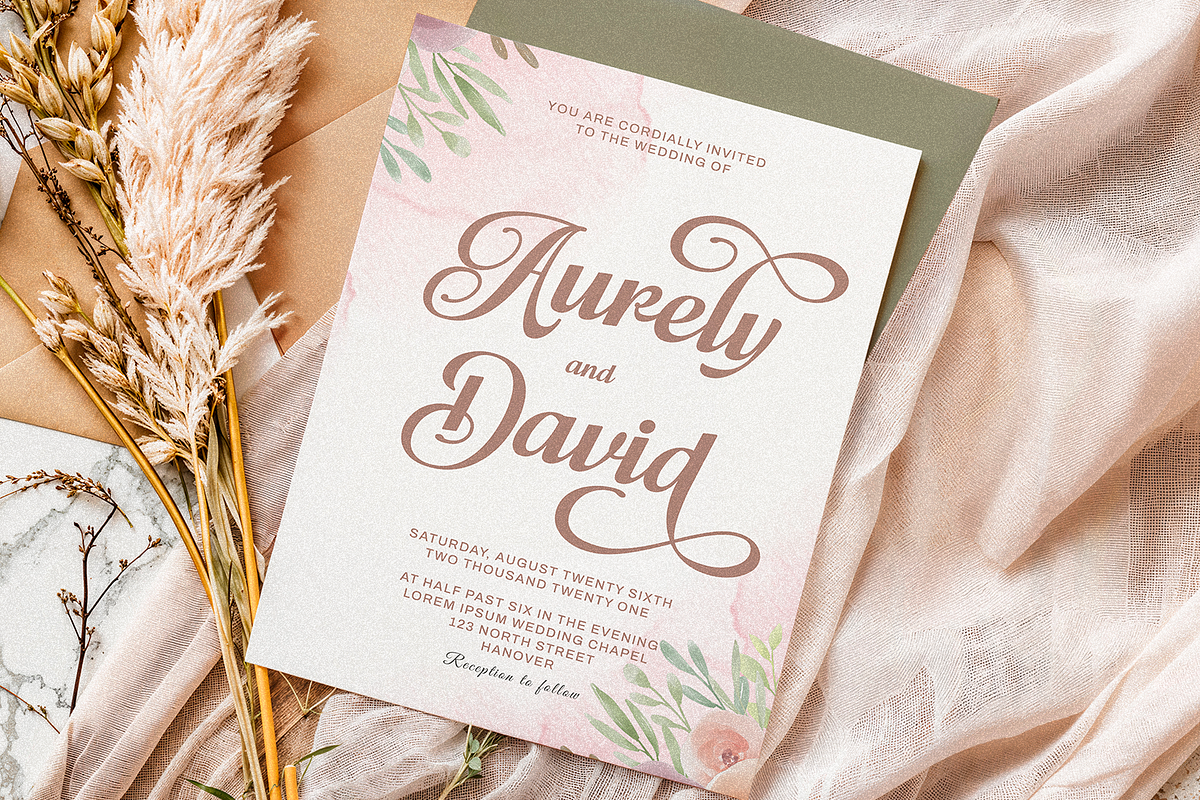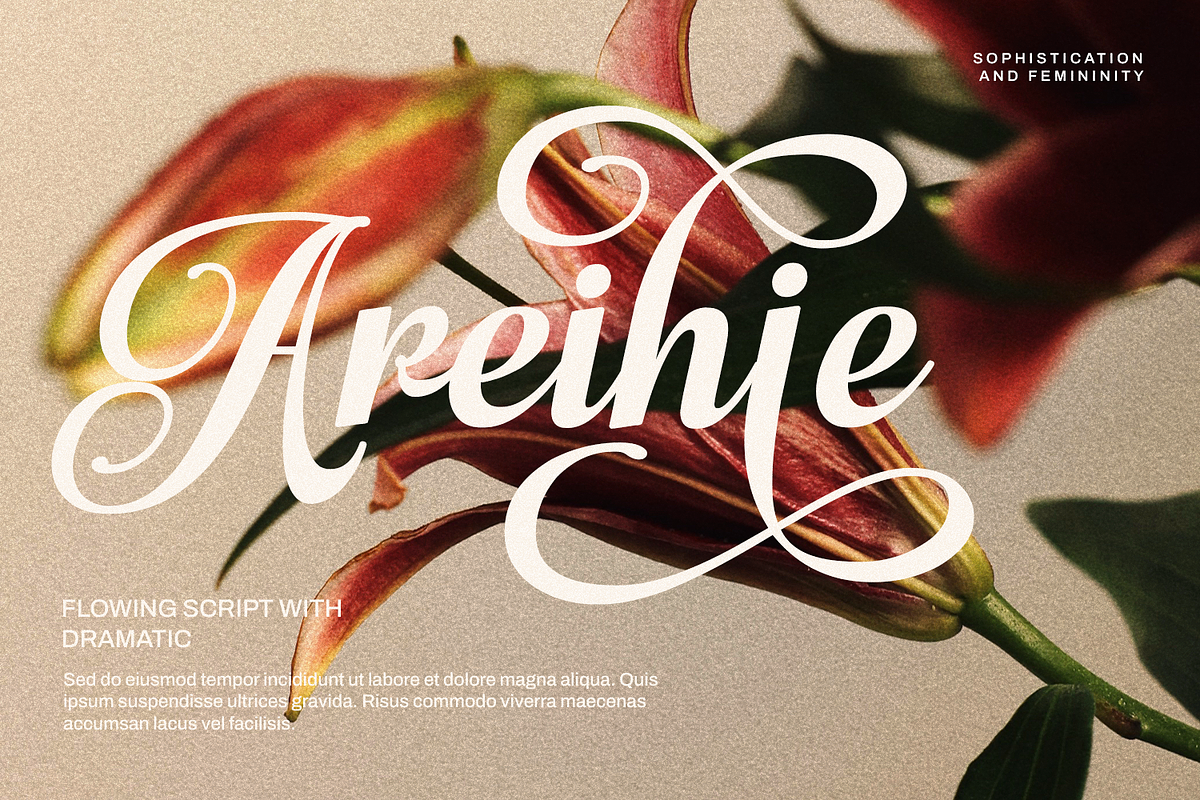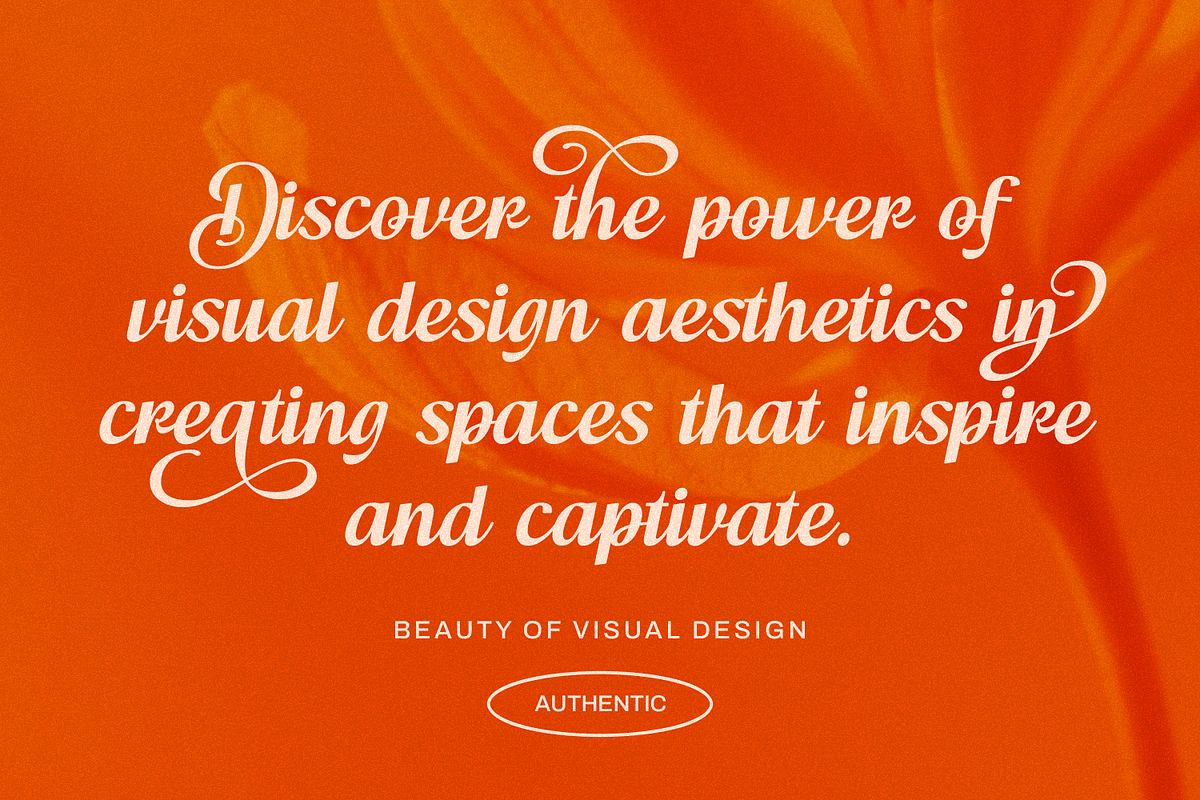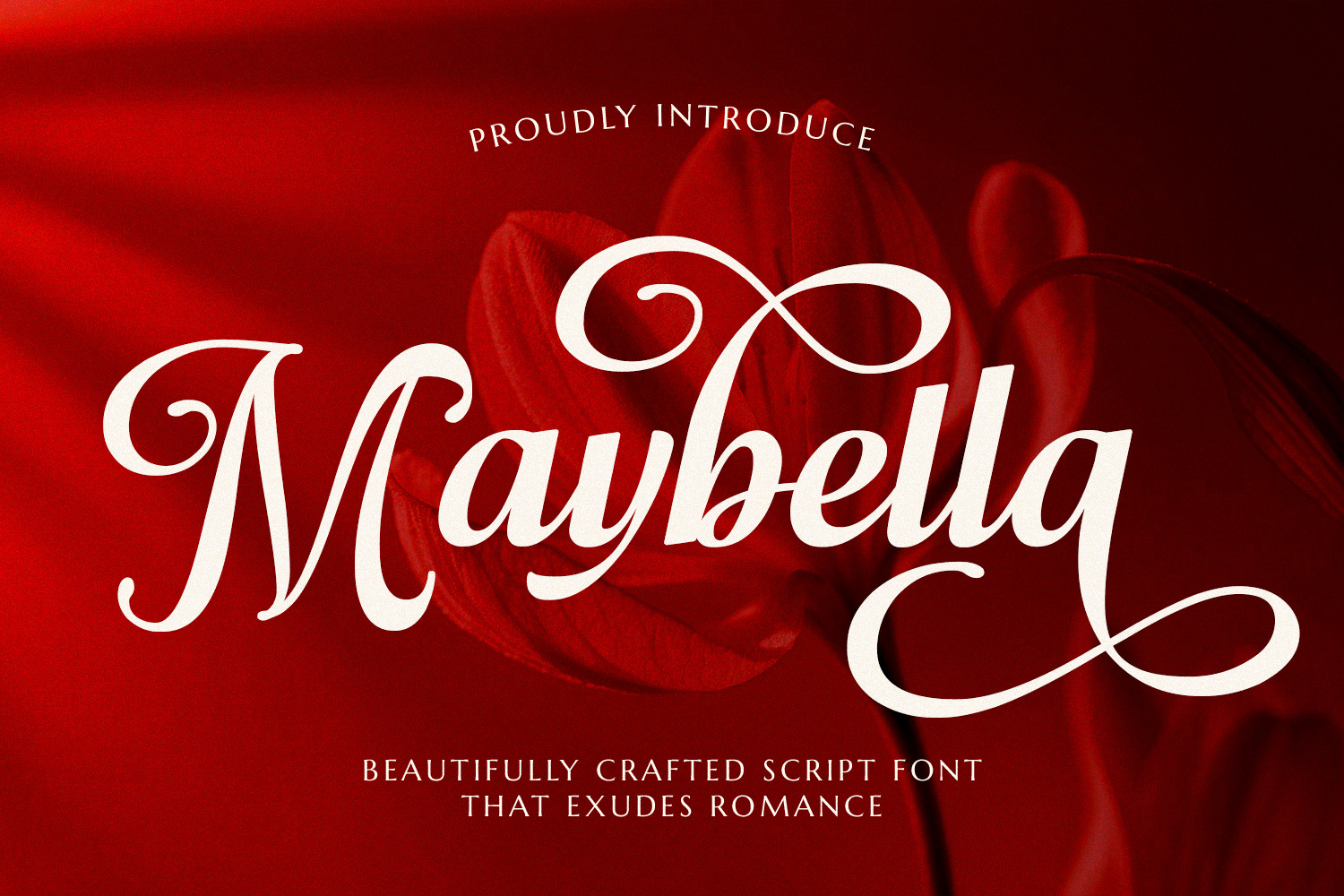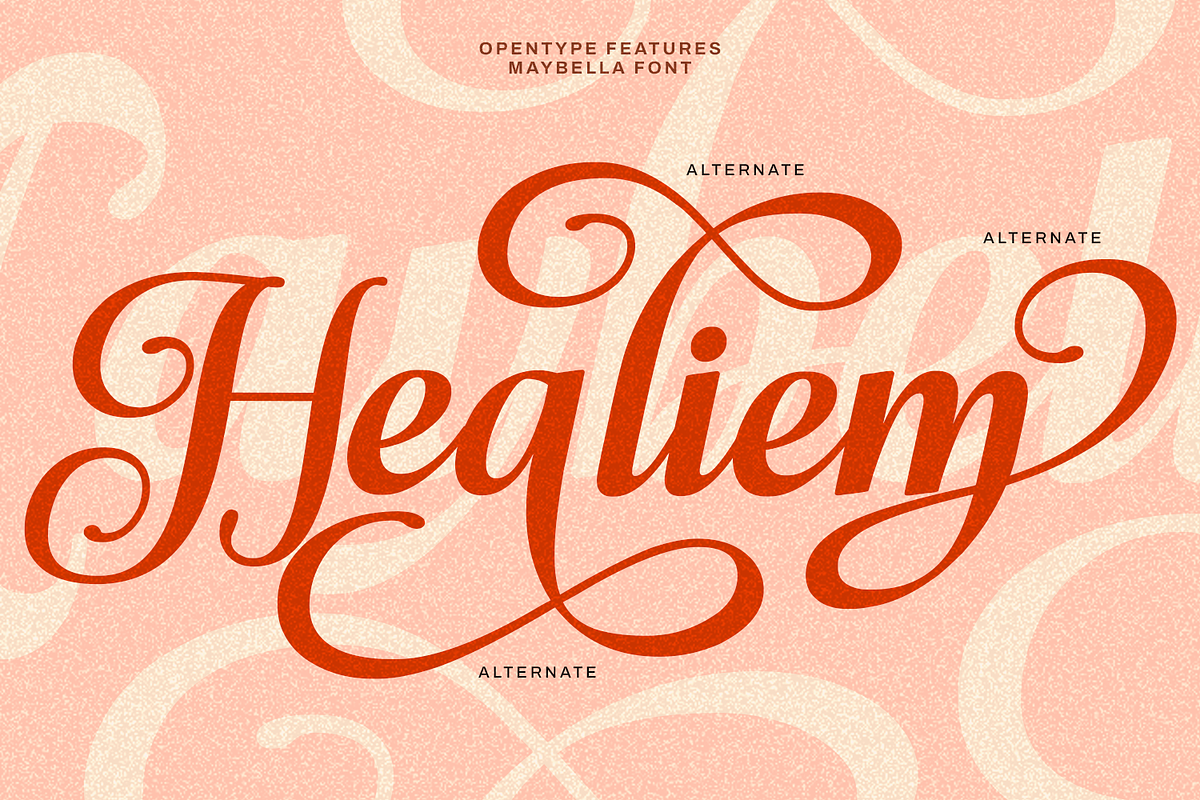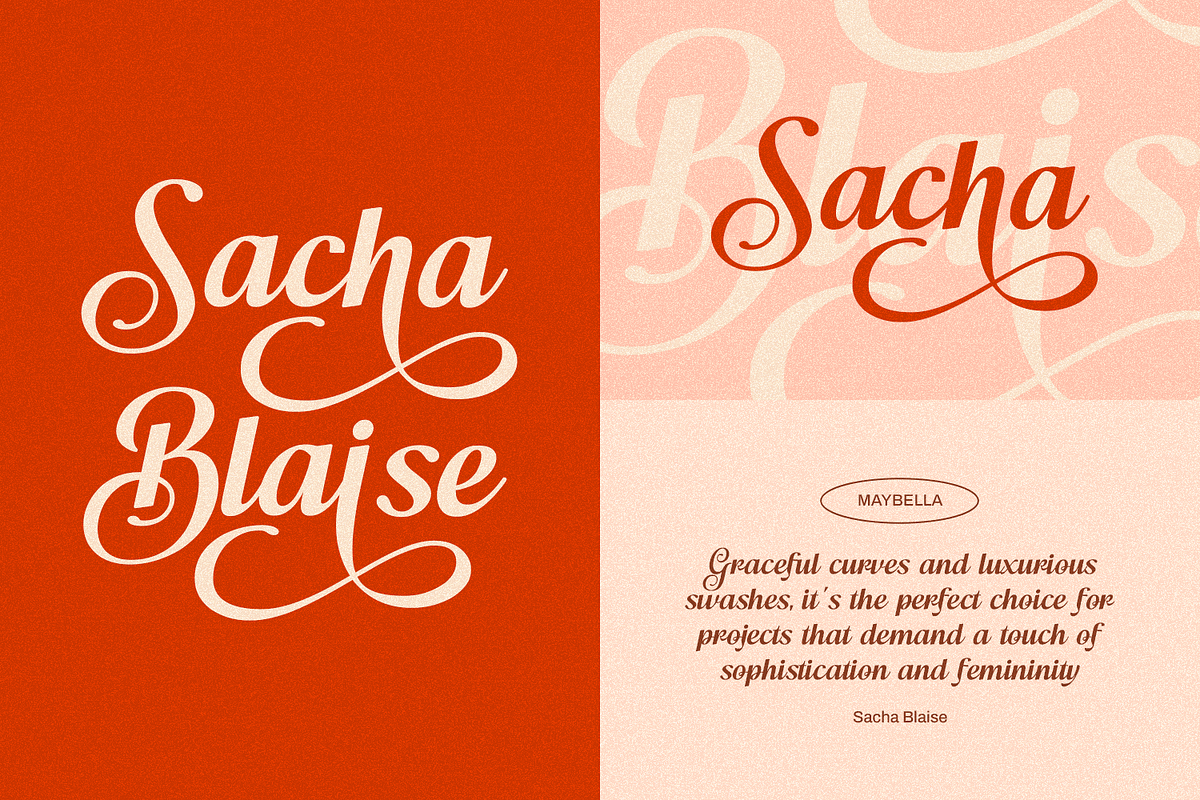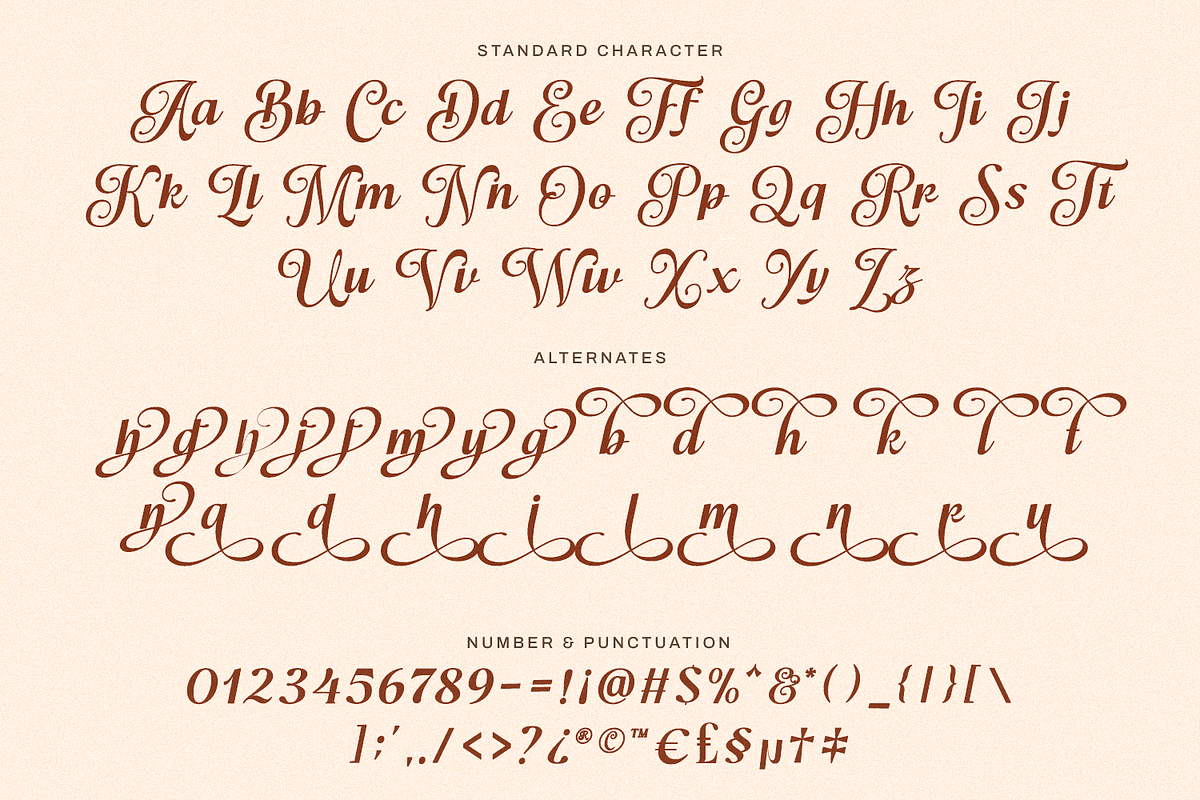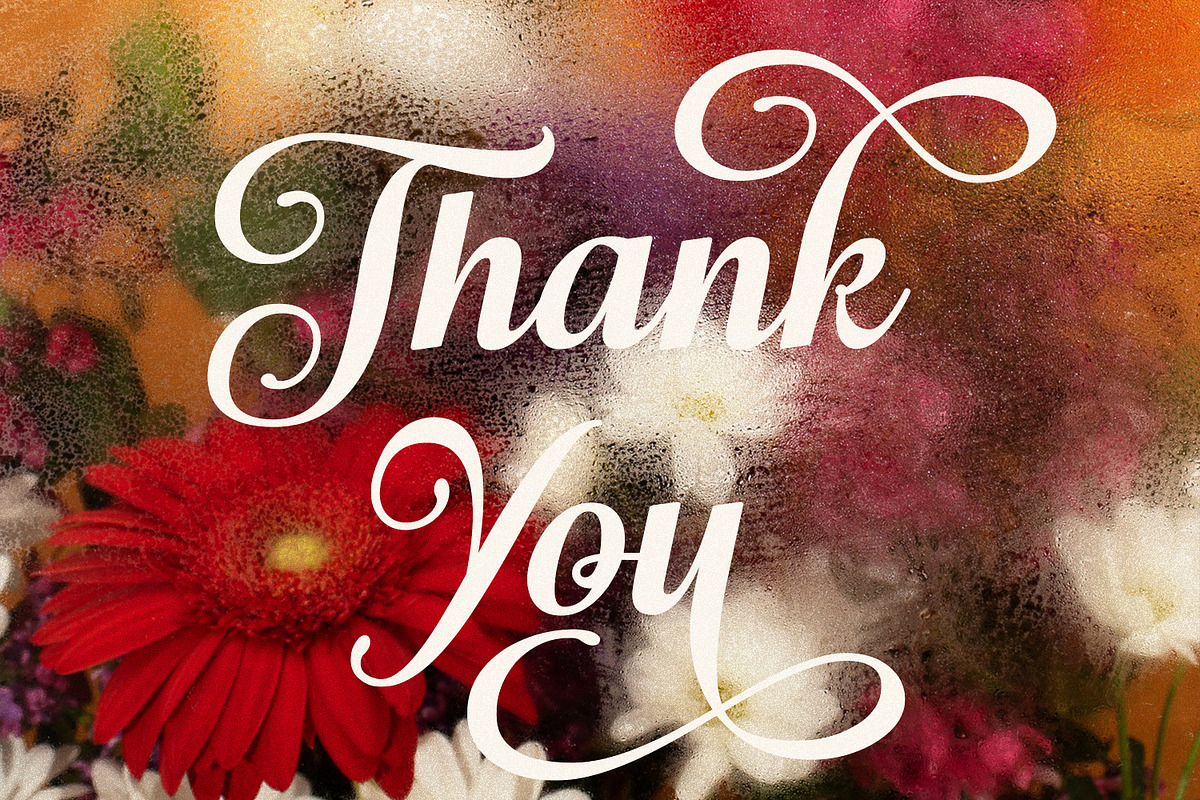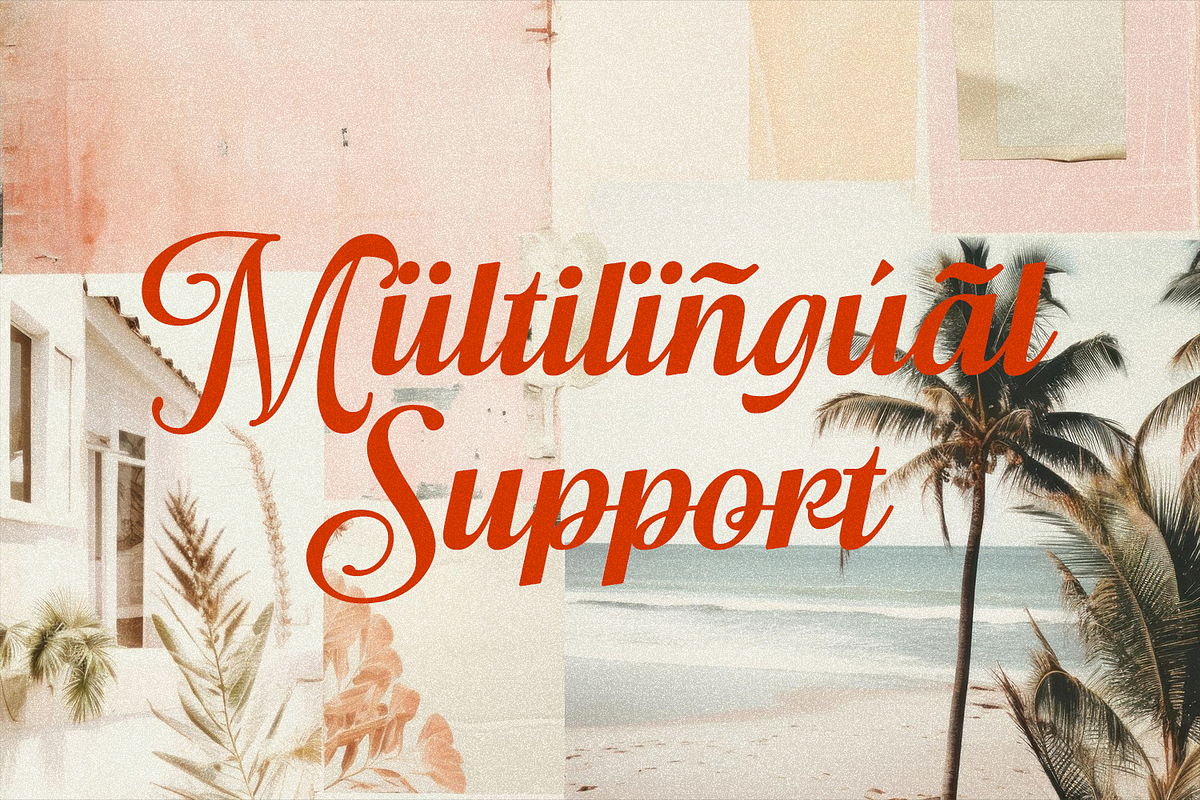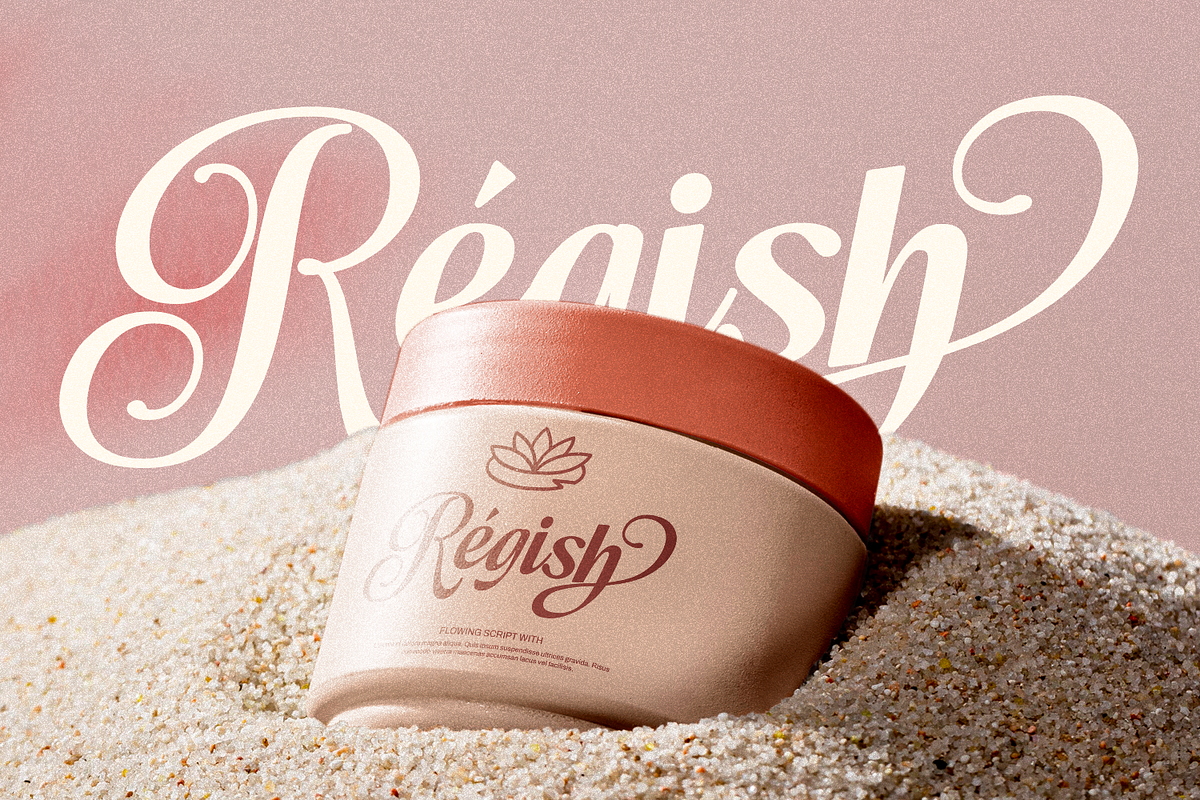
Maybella - Wedding Font
Maybella is a charming script handwritten font designed to bring elegance and warmth to any creative project. With its fluid strokes and graceful curves, this font captures the essence of handwritten calligraphy, making it a perfect choice for festive and heartfelt themes. Every letter flows naturally, enhanced with beginning and ending wash tails that add a delicate, romantic touch to your design.
Crafted to elevate a wide range of projects, Maybella fits beautifully in wedding invitations, birthday cards, Easter crafts, Thanksgiving greetings, and seasonal designs for summer, spring, autumn, and Christmas. Its versatile character makes it equally suitable for Cricut projects, embroidery patterns, and handmade crafts that require a personal and stylish feel.
The font is packed with alternative swashes and ligatures, offering endless possibilities to customize and beautify your text. This flexibility allows for dynamic typography that can be tailored to suit any mood or concept, from casual elegance to formal sophistication. Every character has been thoughtfully designed to maintain visual harmony in every composition.
Maybella’s organic hand-lettered look makes it ideal for use in SVG lettering, logos, quote prints, and decorative signage. Whether creating for personal projects or commercial use, the font ensures your design stands out with charm and finesse. Its high readability and ornamental detailing make it both functional and artistic.
- Standard & Multilingual glyphs.
Fonts include multilingual support for; Afrikans, Danish, Dutch, English, Estonian, Filipino, Finnish, French, Friulian, Galician, German, Gusii, Indonesian, Irish, Italian, Luxembourgish, Norwegian Bokmål, Norwegian Nynorsk, Nyankole, Oromo, Portuguese, Romansh, Rombo, Spanish, Swedish, Swiss-German, Uzbek (Latin) Scottish, Swiss, etc.